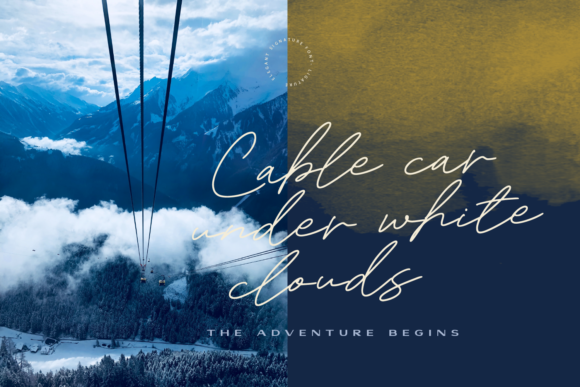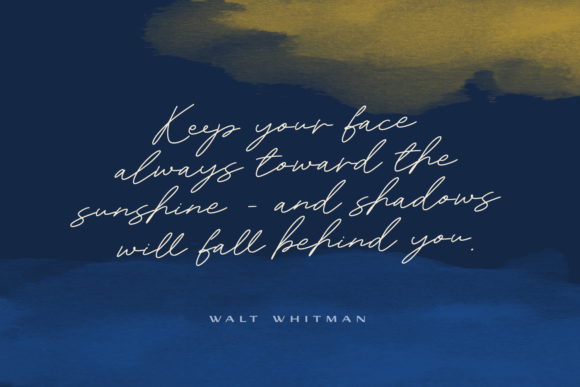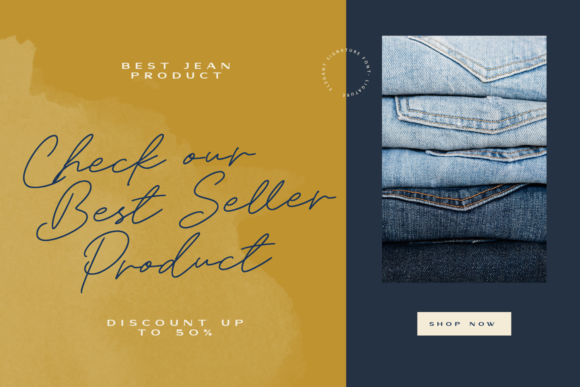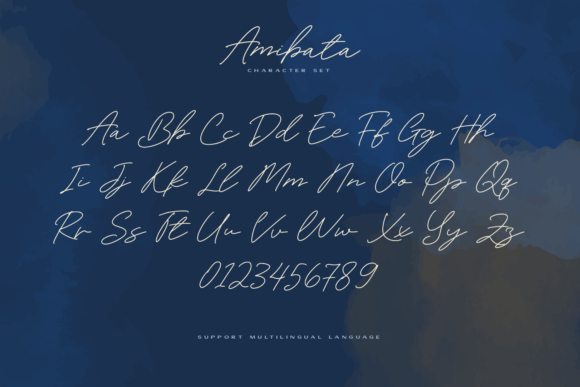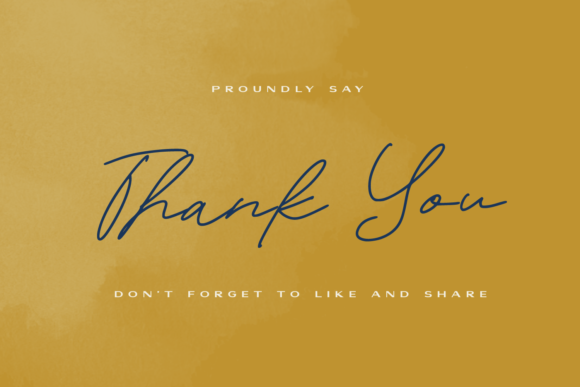
Amibata Font
About Amibata Font
Amibata is a sweet and cursive handwritten font. This gentle font will look gorgeous on a variety of design ideas. It will add a joyful and romantic touch to each of your projects!